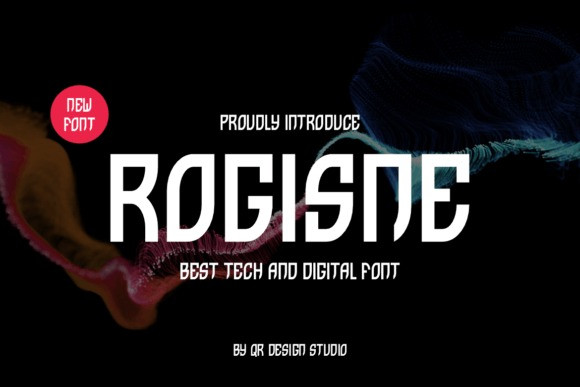
Rogisne Font
Designer: qrdesignstd
Rogisne Font  is a unique and interesting sans serif font.  A little bit quirky, this font looks incredibly adept on a wide variety of contexts!